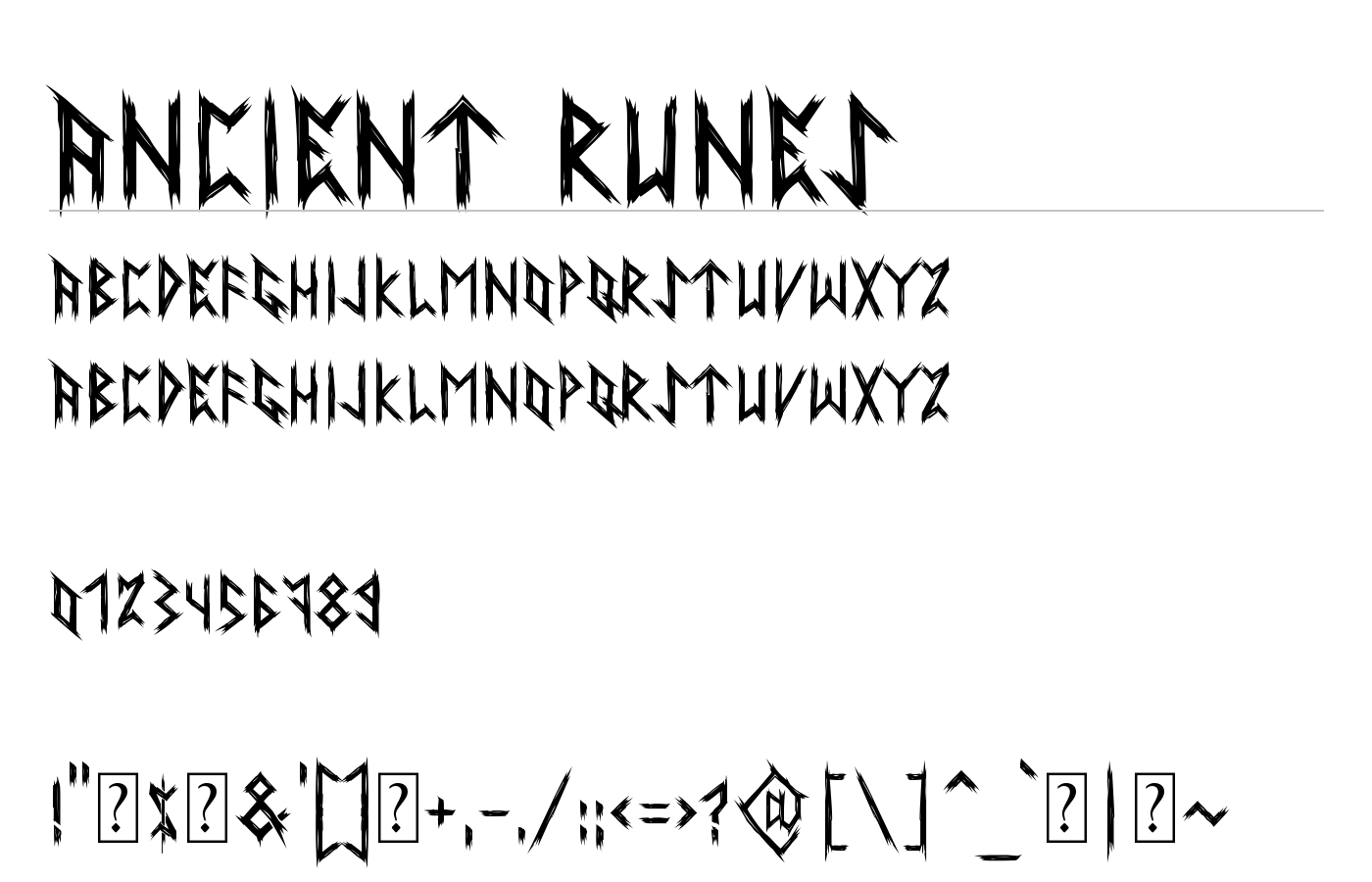
Ancient Runes is a sharp, high-contrast decorative display font inspired by mystical symbols and ancient scripts. Its jagged, narrow letterforms with pointed edges create a dramatic and mysterious vibe, ideal for fantasy, horror, or myth-inspired designs. This font works best for eye-catching headlines, logos, and themed posters where a bold, archaic atmosphere is desired.
Ancient Runes Font